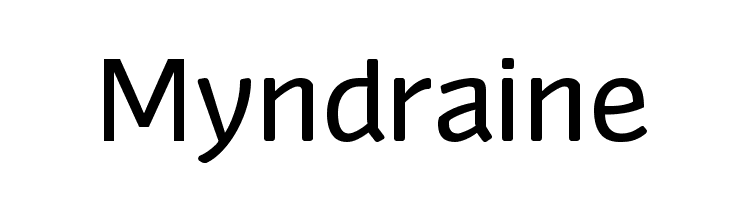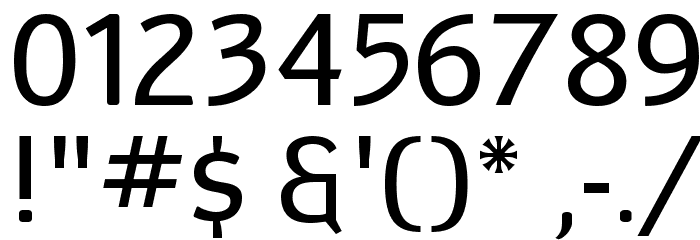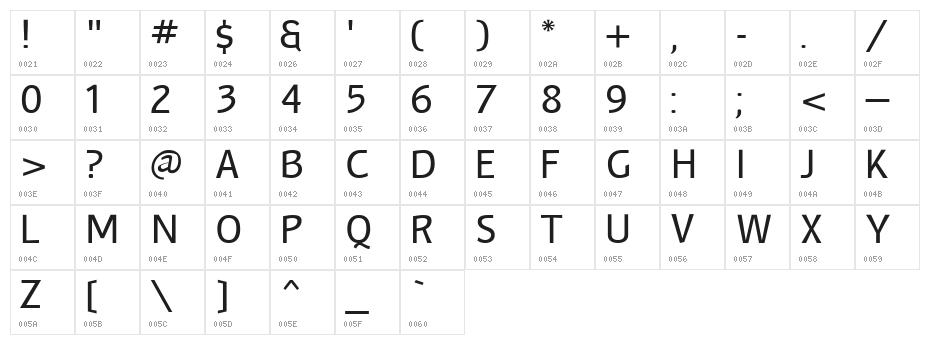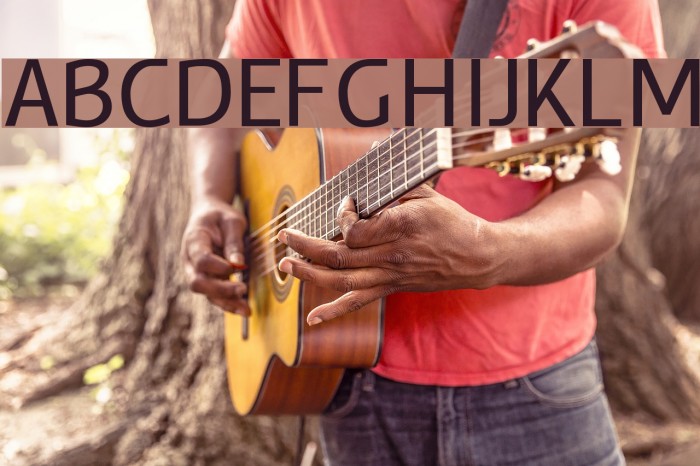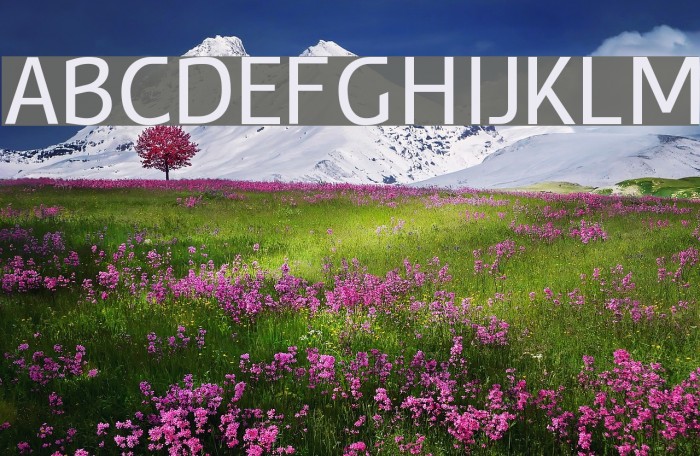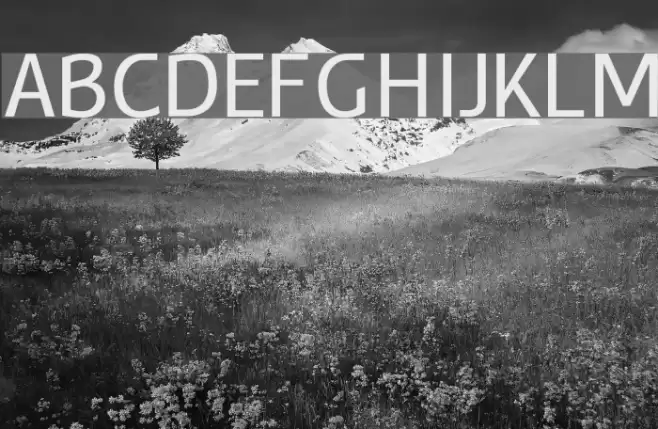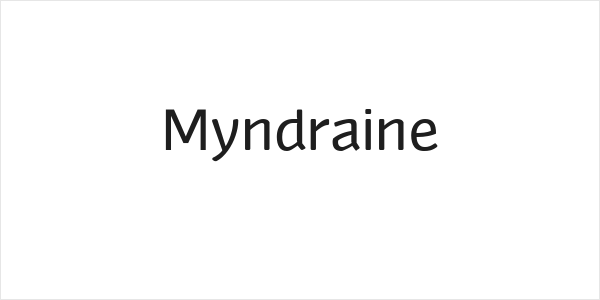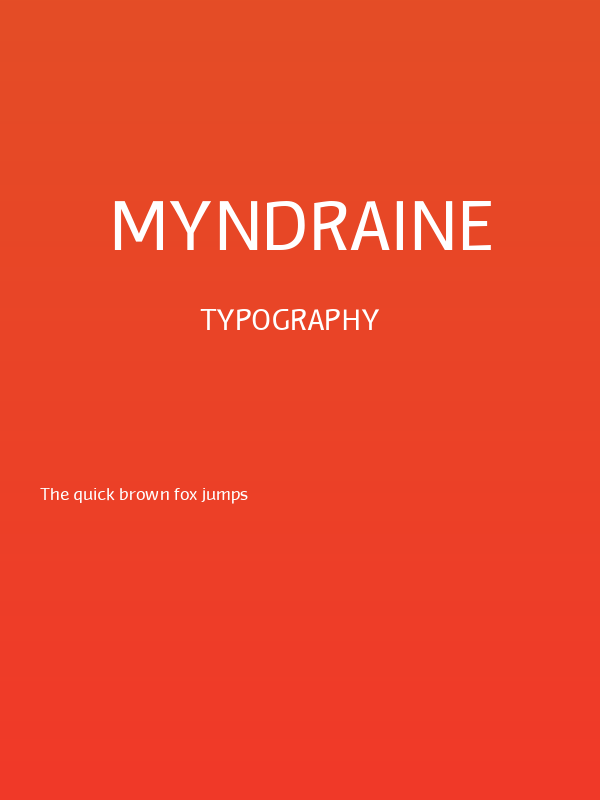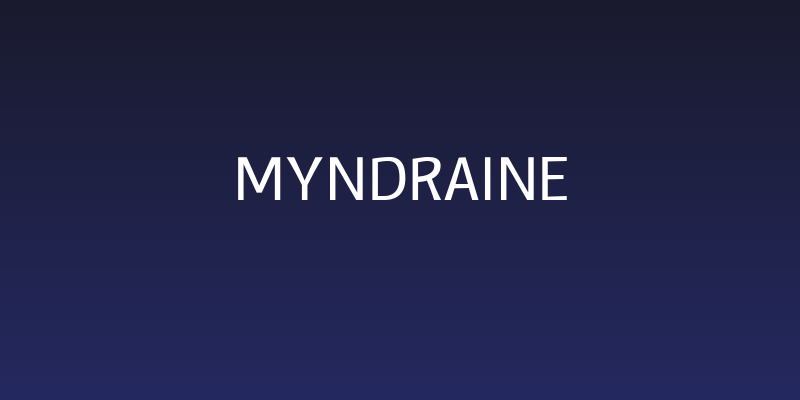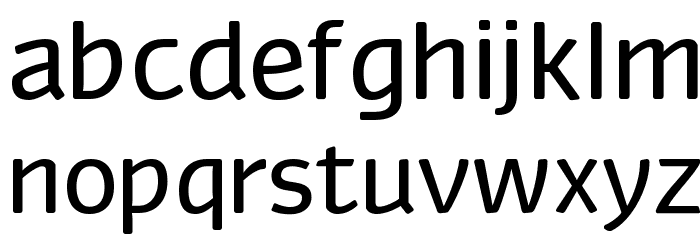
Myndraine Font
Myndraine Description
This font features a clean and modern sans-serif design with a geometric structure. The characters are well-balanced with consistent stroke widths, providing a harmonious and professional appearance. The uppercase letters are bold and assertive, while the lowercase letters maintain a friendly and approachable look. The numerals are clear and legible, making them suitable for various applications. Special characters are included, enhancing the font's versatility. Overall, this font is ideal for projects that require a contemporary and sleek aesthetic.
| Proposed Projects | Ideal for branding, web design, advertising, and editorial projects requiring a modern touch. |